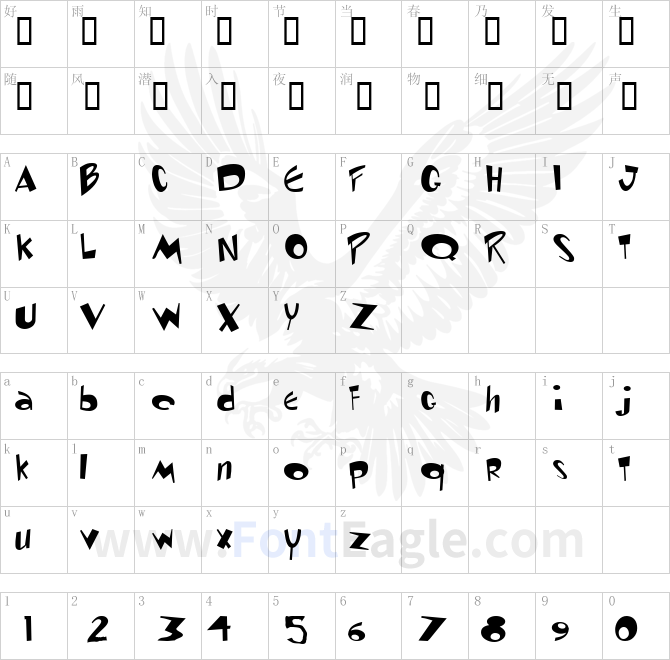
Ren-Stimpy is a great font, widely used in graphic design, single-page menu design, poster design and other fields, and is deeply loved by designers.Ren-Stimpy download.